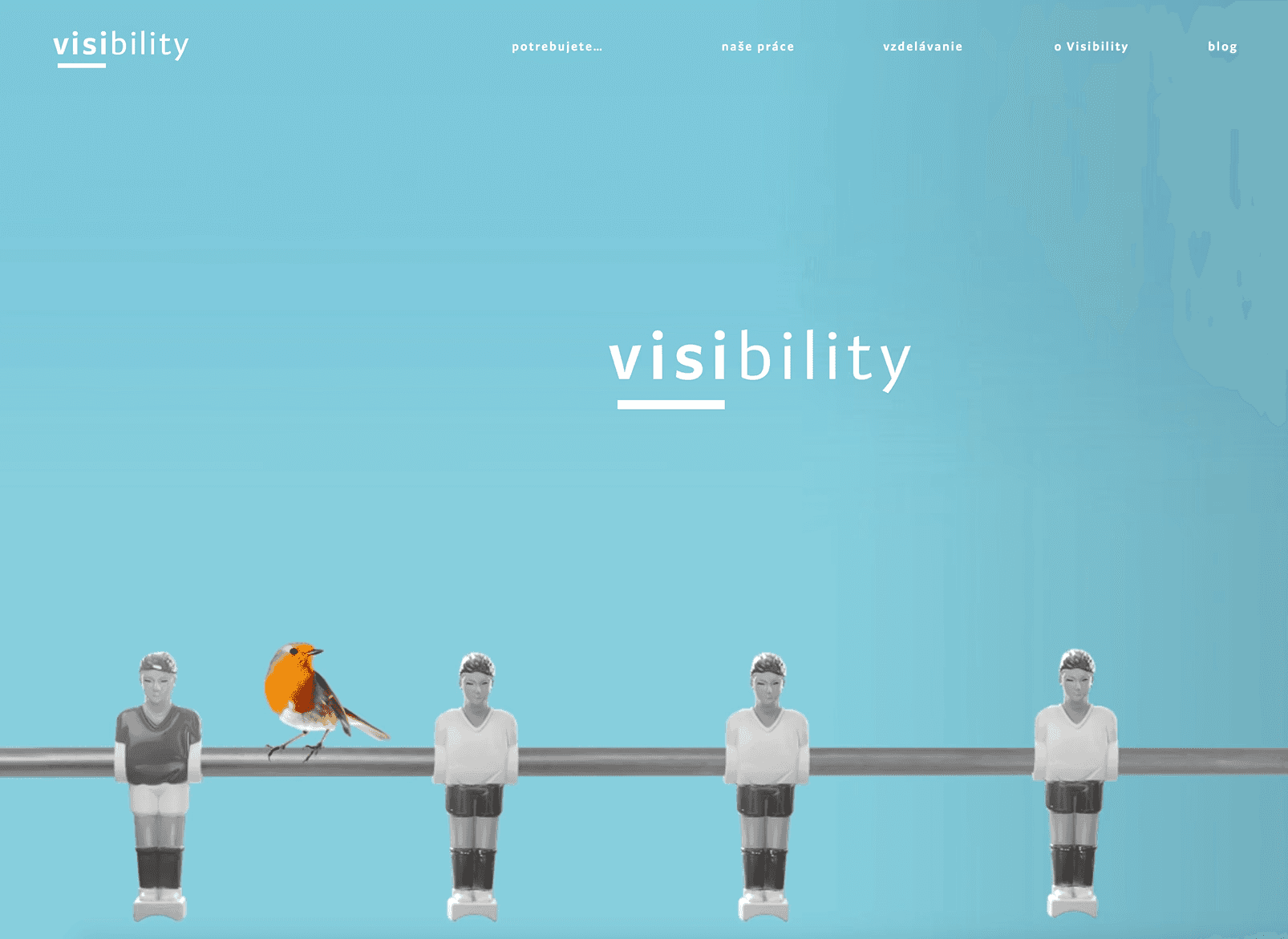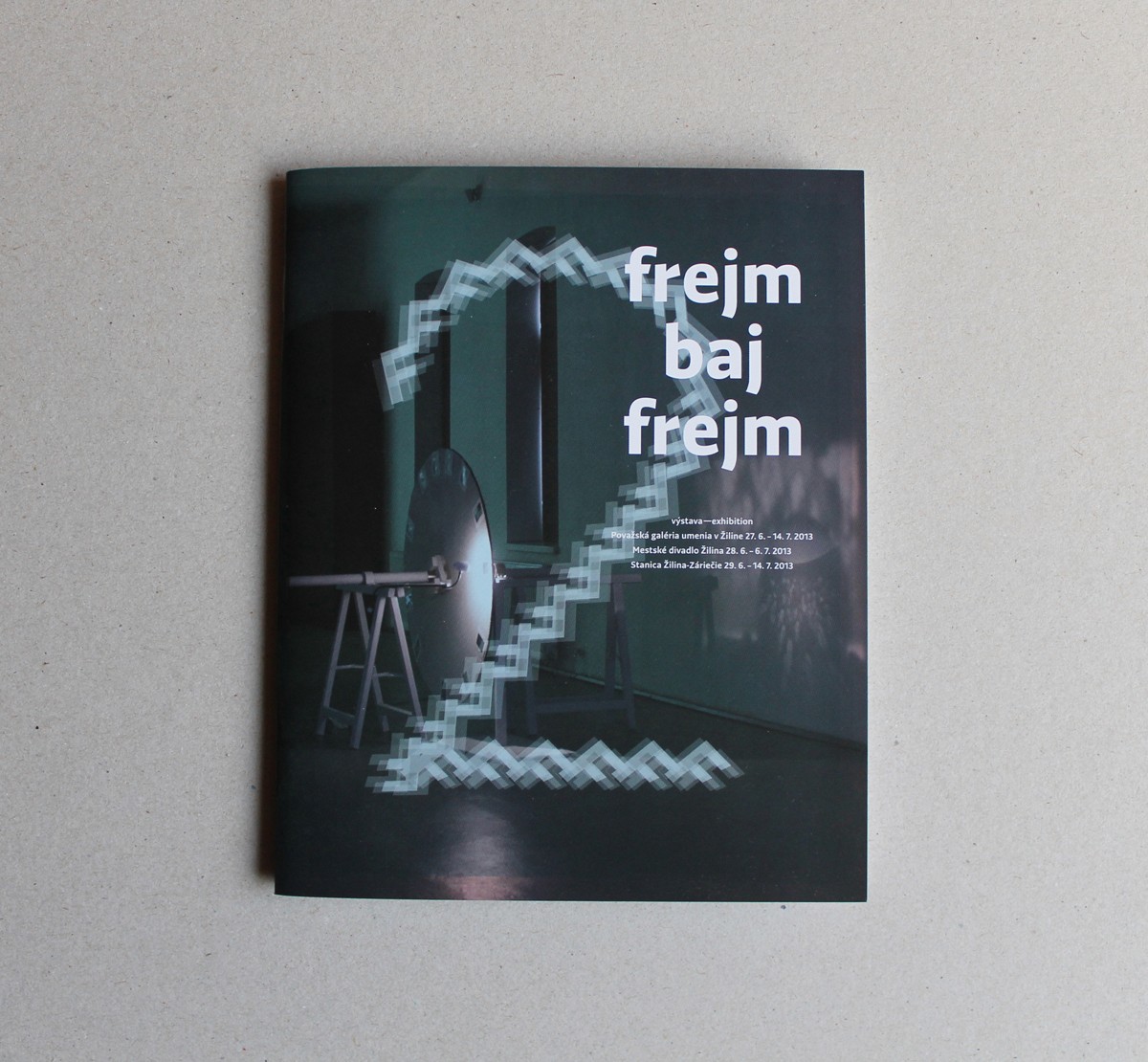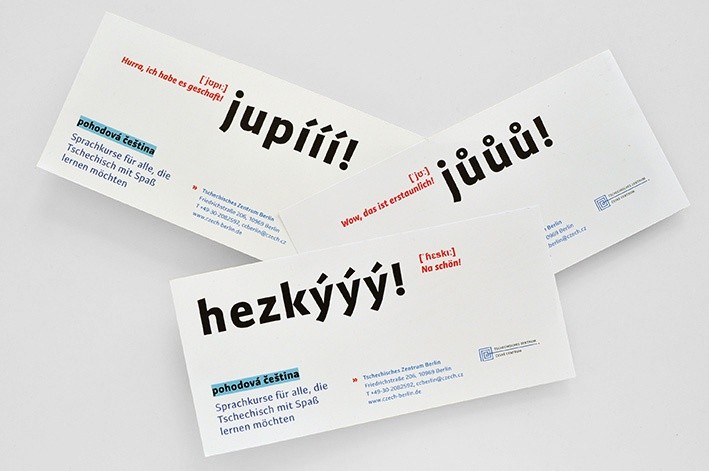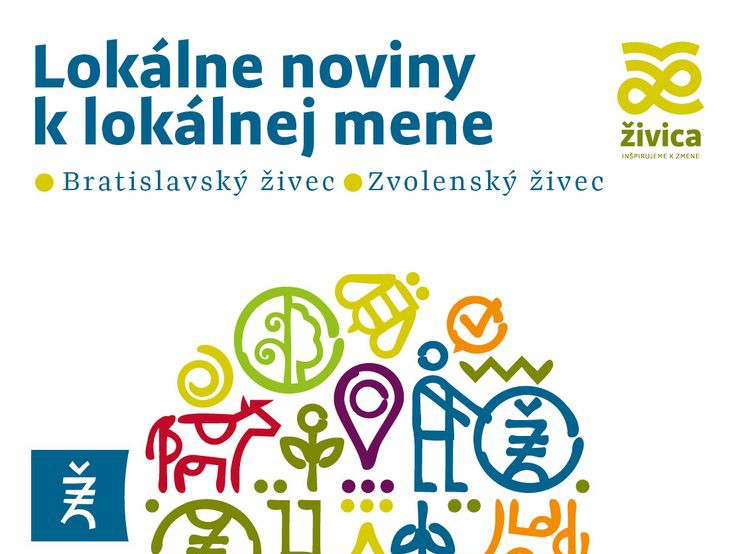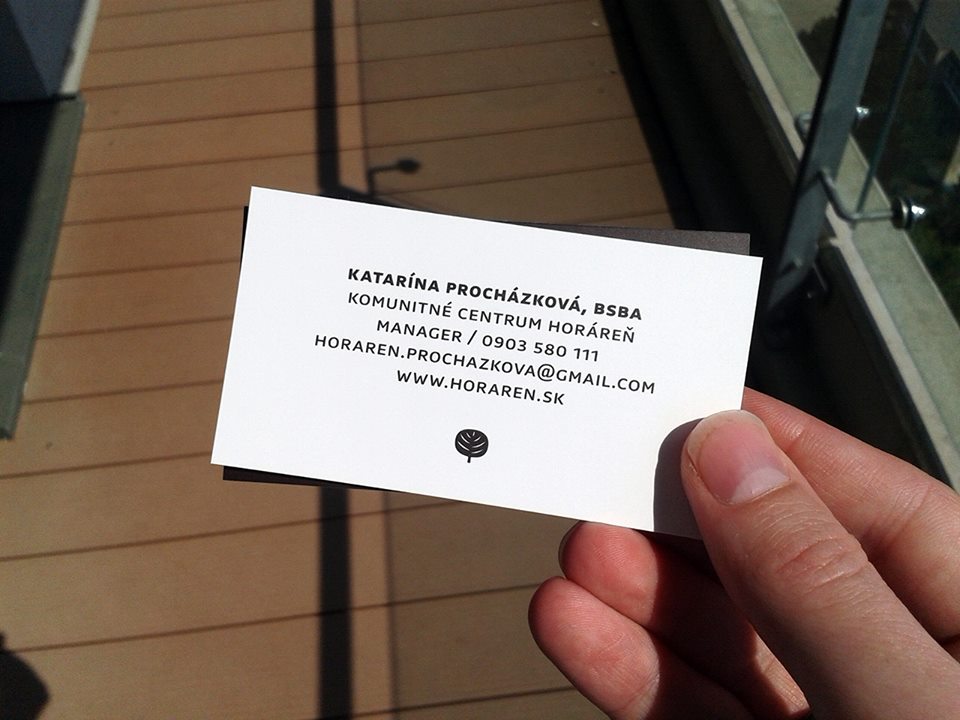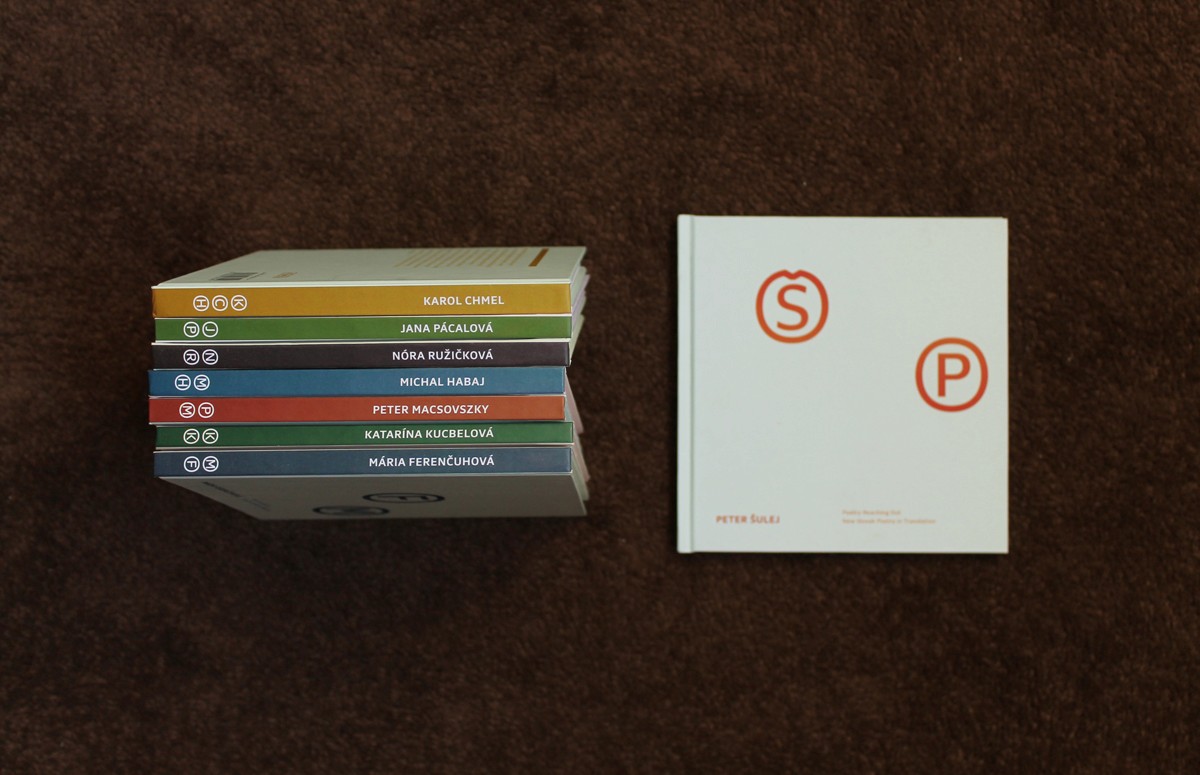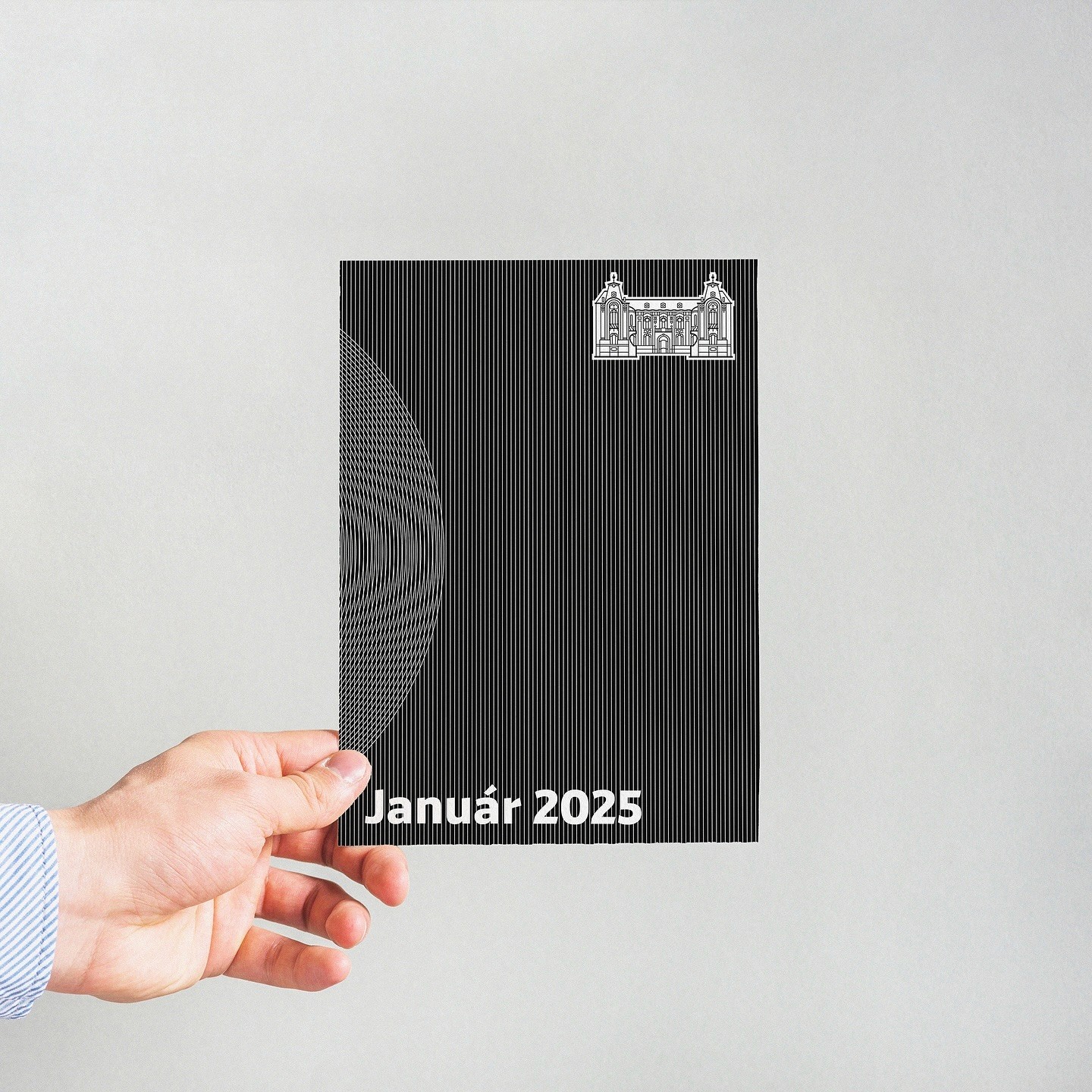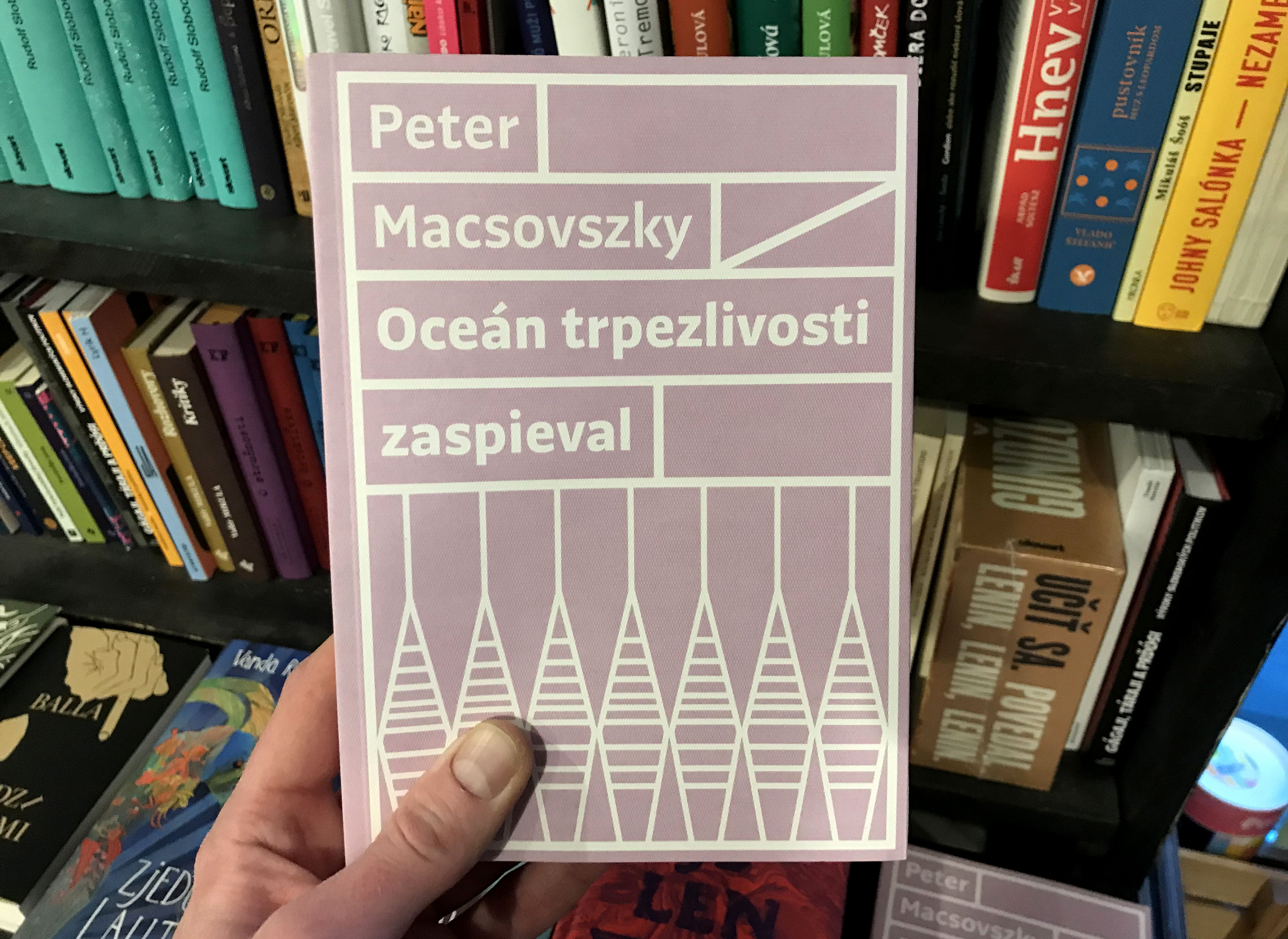
Versatile Sans-serif for Modern Identities
Preto Sans & Serif Typefaces in use for the Readmio visual identity / Design: Erik Nota
Preto Sans Typeface in use for the logo of Visibility marketing agency
Preto Sans Typeface in use for the "Frejm baj frejm" (Frame by Frame) exhibition / Design: Michal Macko
Preto Sans Typeface in use for the "Pohodová Čeština" (Easy Czech) visual identity / Design: Tomáš Vrtich
Preto Sans Typeface in use for the Živica visual identity / Design: Juraj Balogh
Preto Sans Typeface in use for "Horáreň" (Forester's Lodge) community center / Design: Tomáš Vrtich
Preto Sans Typeface in use for the "Reaching Out" poetry edition / Design: Michal Macko
Preto Sans Typeface in use for "Rosenfeldov palác" (Rosenfeld Palace) visual identity / Design: Profigrafik
Preto Sans Typeface in use for the "Oceán trpezlivosti zaspieval" (The Ocean of Patience Sang) book / Vlna
Preto Sans Typeface in use for "Belasý motýľ" (Blue Butterfly) campaign
Preto Sans Typeface in use for street signage and house Numbers / Design: Roman Mackovič
Preto Sans Typeface in use for "Laboratórium sexuality" (Laboratory of Sexuality) poster
Preto Sans Typeface in use for Kinobus 2013 event